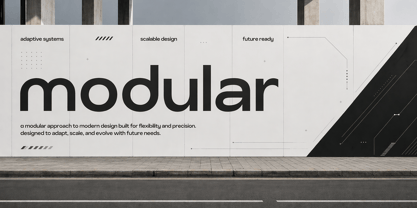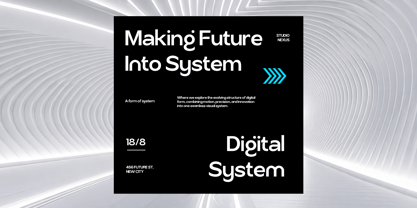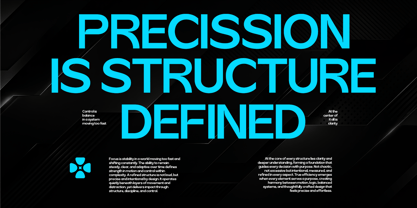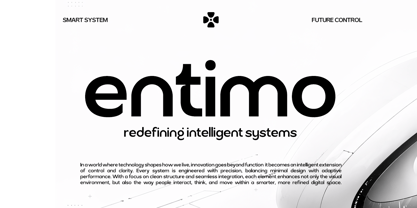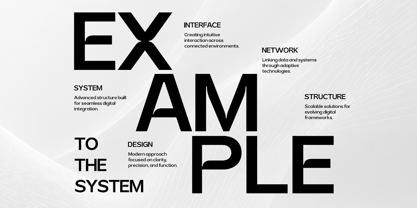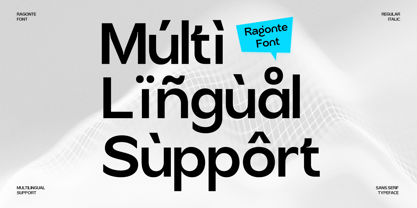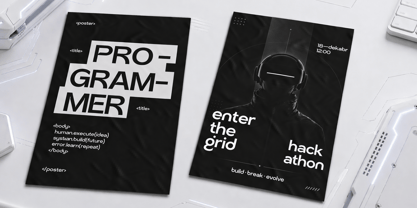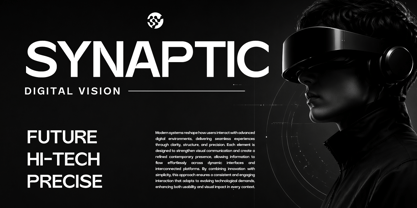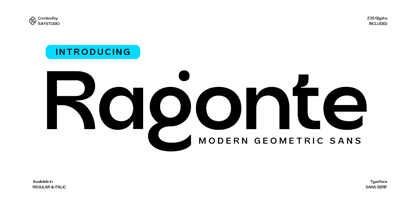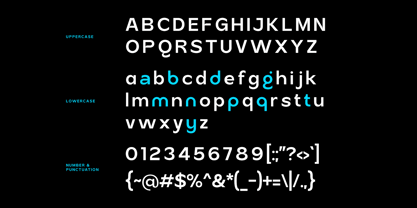
Ragonte
by Say Studio
The Ragonte Font Family was designed by Mussyayin and published by Say Studio. Ragonte contains 2 styles and family package options. More about this family
Introducing Ragonte, a futuristic geometric sans serif font designed for modern technology and digital branding. With clean curves, bold proportions, and minimalist letterforms, this typeface delivers a sleek and professional futuristic aesthetic perfect for today’s creative industry.
Ragonte is ideal for tech startups, gaming projects, UI/UX design, esports branding, sci-fi posters, automotive visuals, social media content, and modern corporate identities. Its strong geometric structure creates a clean, innovative, and highly versatile appearance that works beautifully for headlines, logos, branding, and display typography. to enhance your creative projects with a premium technological style.
Crafted for designers who want a modern and futuristic visual identity, Ragonte includes multilingual support, punctuation, numerals, and stylistic alternates to enhance your creative projects with a premium technological style.
Font Features :
- Regular & Italic
- Uppercase & Lowercase
- Numerals & Punctuation
- Multilingual Support
- Stylistic Alternates
- Modern Futuristic Style
Designers: Mussyayin
Foundry: Say Studio